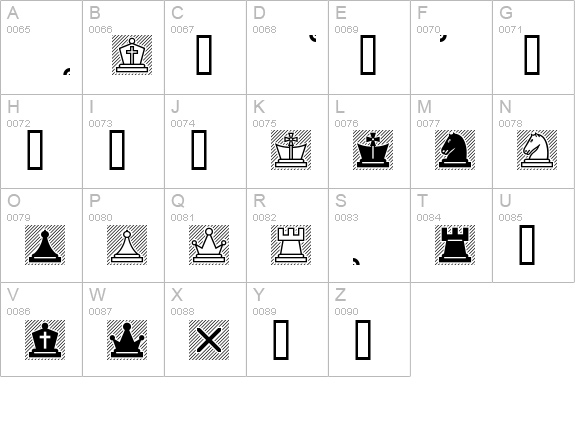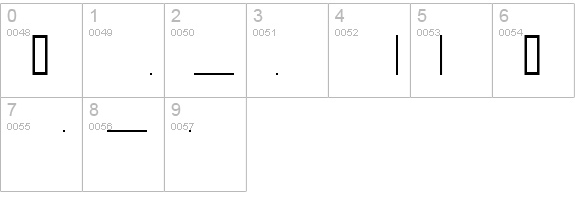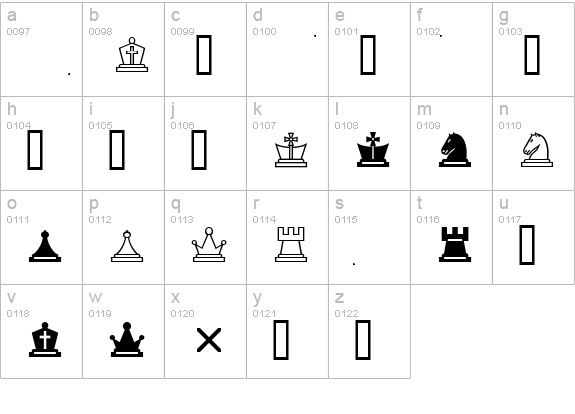
Chess Lucena Font Details
Chess Lucena font is a classic and elegant typeface that is perfect for adding a touch of sophistication to your designs. With its clean lines and sharp edges, this font exudes a sense of professionalism and modernity. Whether you are creating posters, logos, or any other design project, Chess Lucena font is sure to make a statement. The best part about Chess Lucena font is that it is completely free to download! That's right, you can easily access this stylish font at FontsMarket.com without having to spend a penny. So go ahead and elevate your designs with the timeless charm of Chess Lucena font today.